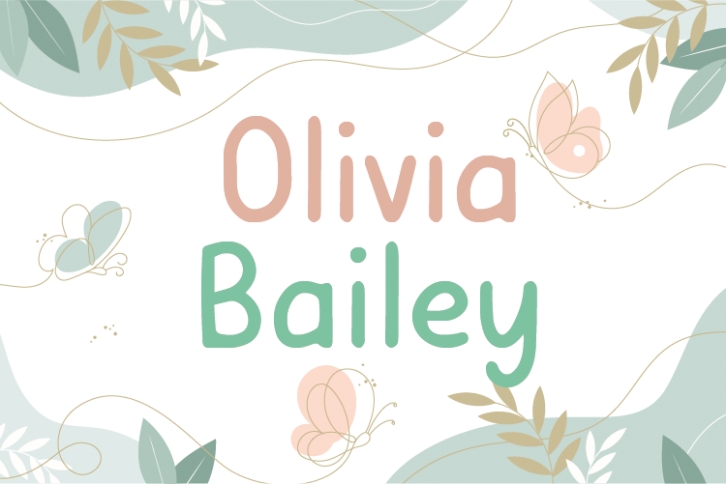
Olivia Bailey is a natural handwritten font made without changing a single node in each character’s indentation. This makes this font very interesting and unique. Perfect for quotes, notes, tees, and any product design.